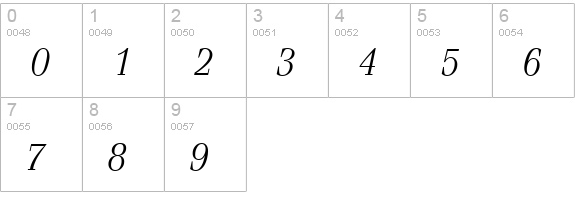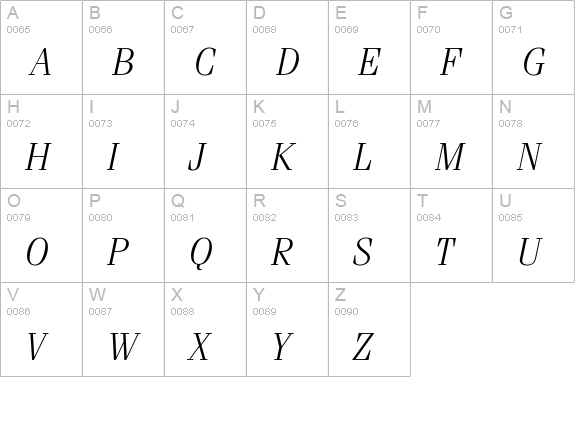
Ferrara-Light-Italic is a refined, elegant, italic variant in the Ferrara typeface family \xE2\x80\x94 well suited to elegant body text, refined sub-headings, and luxury branding.
Ferrara-Light-Italic is a modern and elegant font that exudes sophistication and grace. Its delicate, slanted italics give a touch of refinement to any design project. With its clean lines and subtle curves, Ferrara-Light-Italic is perfect for adding a touch of class to invitations, branding materials, and editorial designs. The best part? Ferrara-Light-Italic is completely free to download at FontsMarket.com. You can easily access this beautiful font and elevate your projects with its timeless style. Don't miss out on the opportunity to enhance your designs with this stunning typeface, available at no cost. Download Ferrara-Light-Italic today and elevate your design game effortlessly.